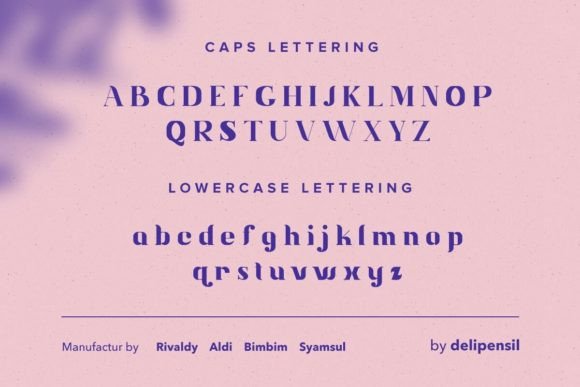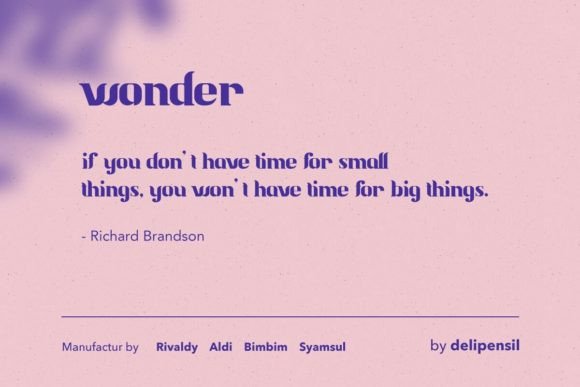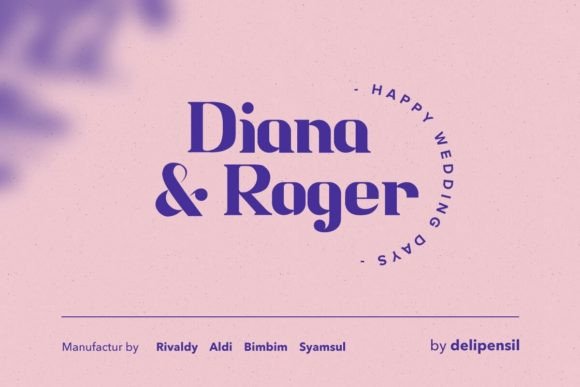
Introduction to Jetfast Font
As a designer, you know the thrill of staring at a blank canvas, waiting for inspiration to strike. It’s that moment when the perfect font can elevate your entire creative project. You’ve probably spent hours searching for the perfect font to match your vision, only to settle for something that’s ‘close enough.’ But what if you could find a font that’s not only beautiful but also versatile and modern? Enter the Jetfast Font, a game-changing design resource that’s about to revolutionize your creative process.
With its bold, elegant, and clean design, the Jetfast Font is the perfect addition to any project. Whether you’re designing a logo, creating a website, or crafting a social media post, this high-quality font is sure to give your work an elegant touch. And the best part? It’s available for free download, making it an invaluable resource for designers of all levels.
Key Features of Jetfast Font
- High-quality, modern design suitable for creative projects
- Unique, futuristic style with a high level of detail and texture
- Perfect for use in digital design, branding, and creative projects requiring a modern, high-tech look
Honest Review: Jetfast Font
I recently stumbled upon the Jetfast Font while searching for a design resource for a creative project. The first thing that caught my eye was the sleek, modern design. As a designer, I appreciate the simplicity and versatility of this font.
- ✨ Works well in a variety of creative projects, from digital signage to branding materials.
- ✨ Offers a transparent background option, which makes it easy to integrate with any design.
- ✨ High quality and crisp, even at larger font sizes.
However, I did encounter a few limitations. The Jetfast Font doesn’t support as many languages as I would have liked, and the font file size is a bit larger than I prefer. Additionally, the font doesn’t come in as many weights and styles as some other popular fonts.
- ⚠️ Limited language support.
- ⚠️ Larger font file size.
- ⚠️ Limited weight and style options.
Overall, I’m impressed with the Jetfast Font and would recommend it for any design project that requires a clean, modern look. While it may have some limitations, its versatility and high quality make it a valuable addition to any designer’s toolkit.
Tips for Getting the Most Out of Jetfast Font
To get the most out of the Jetfast Font, use it in conjunction with other design elements, such as images and graphics. Experiment with different font sizes and styles to create a visually appealing design. Consider using the font in combination with a transparent background to add depth and dimension to your design.
The Jetfast Font is ideal for a variety of creative projects, including social media graphics, presentations, and documents. It’s also a great choice for designers who want to create high-quality graphics and illustrations. With its transparent background and high-quality design, the Jetfast Font is a valuable resource for any designer.